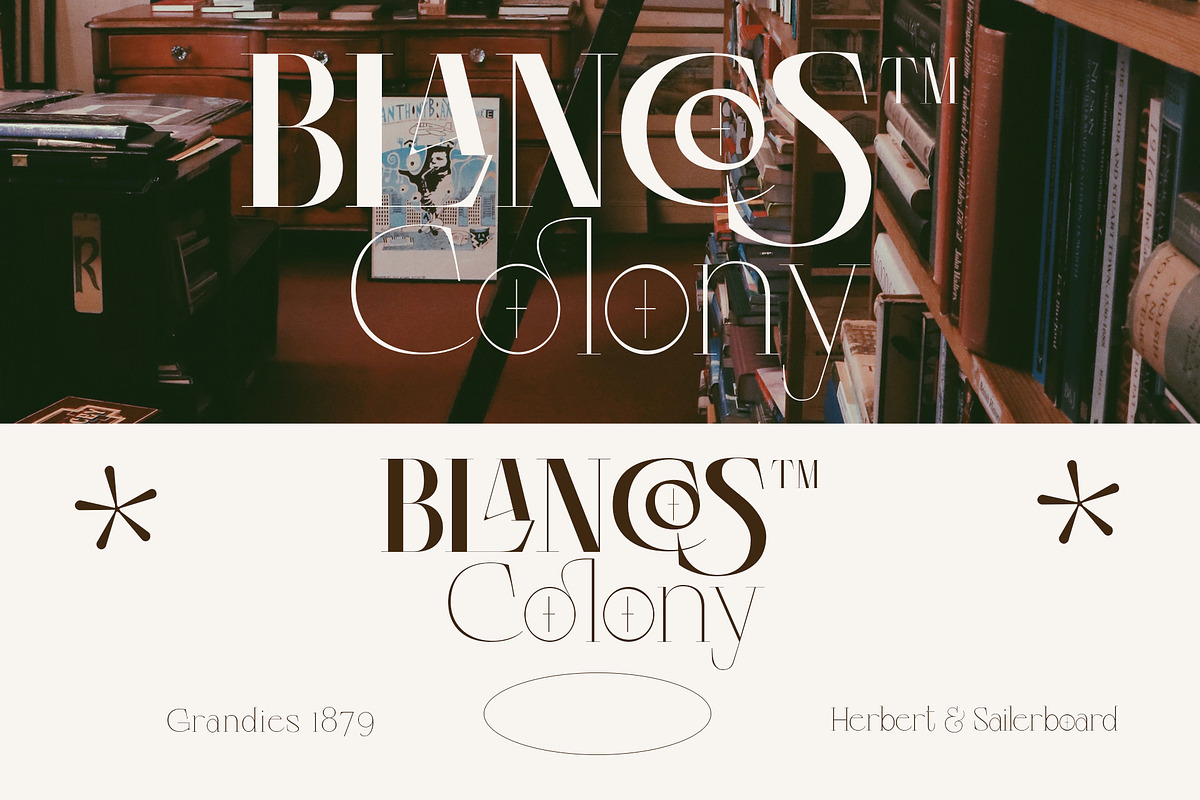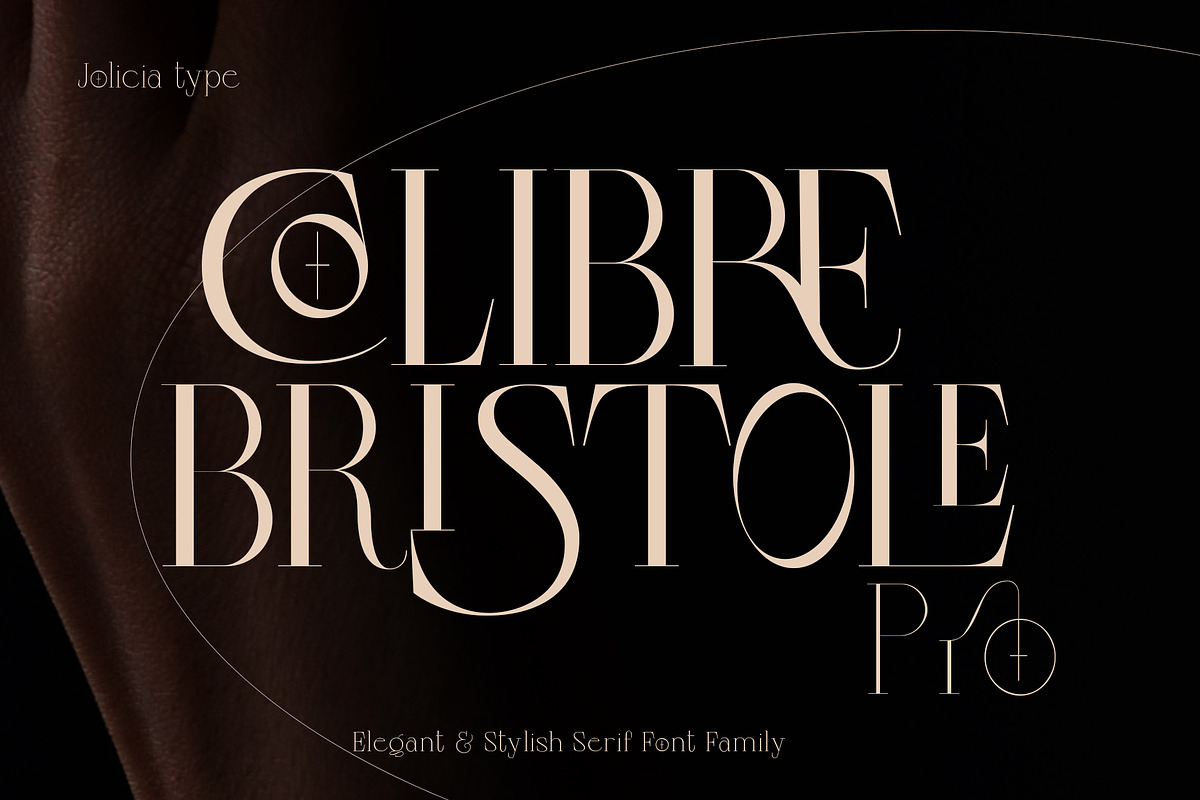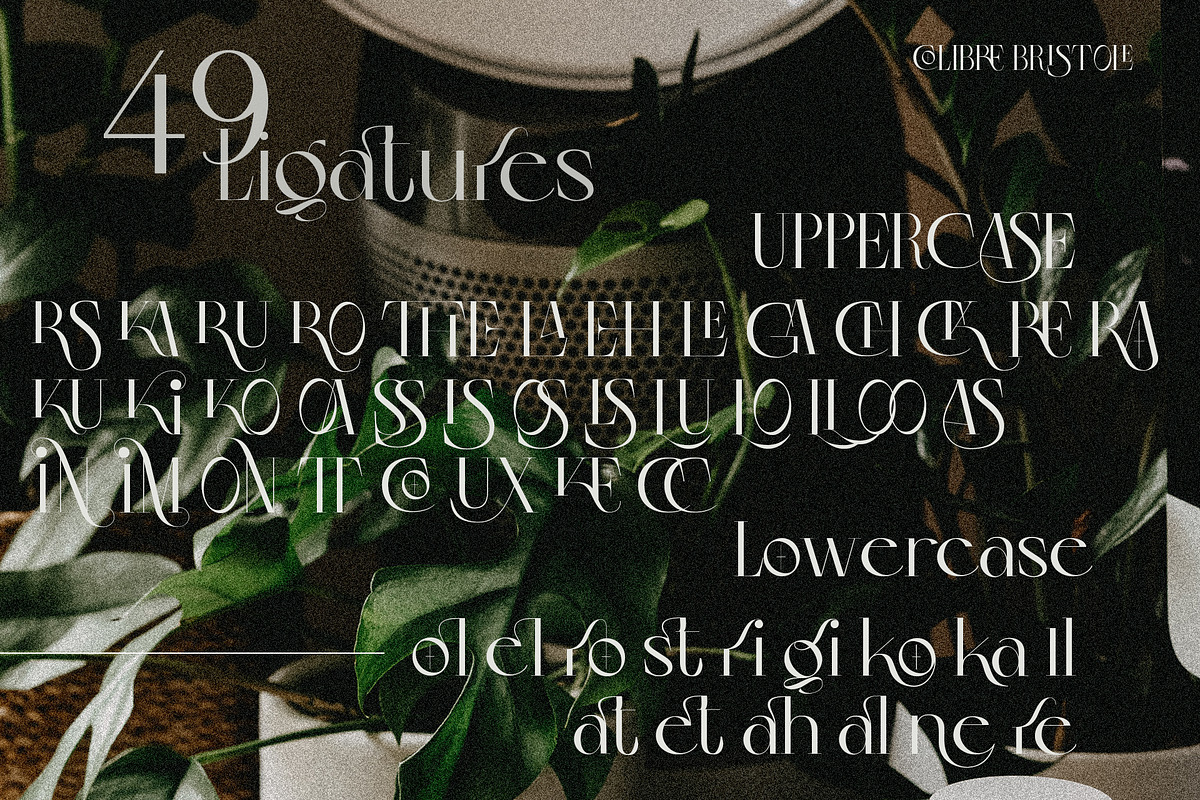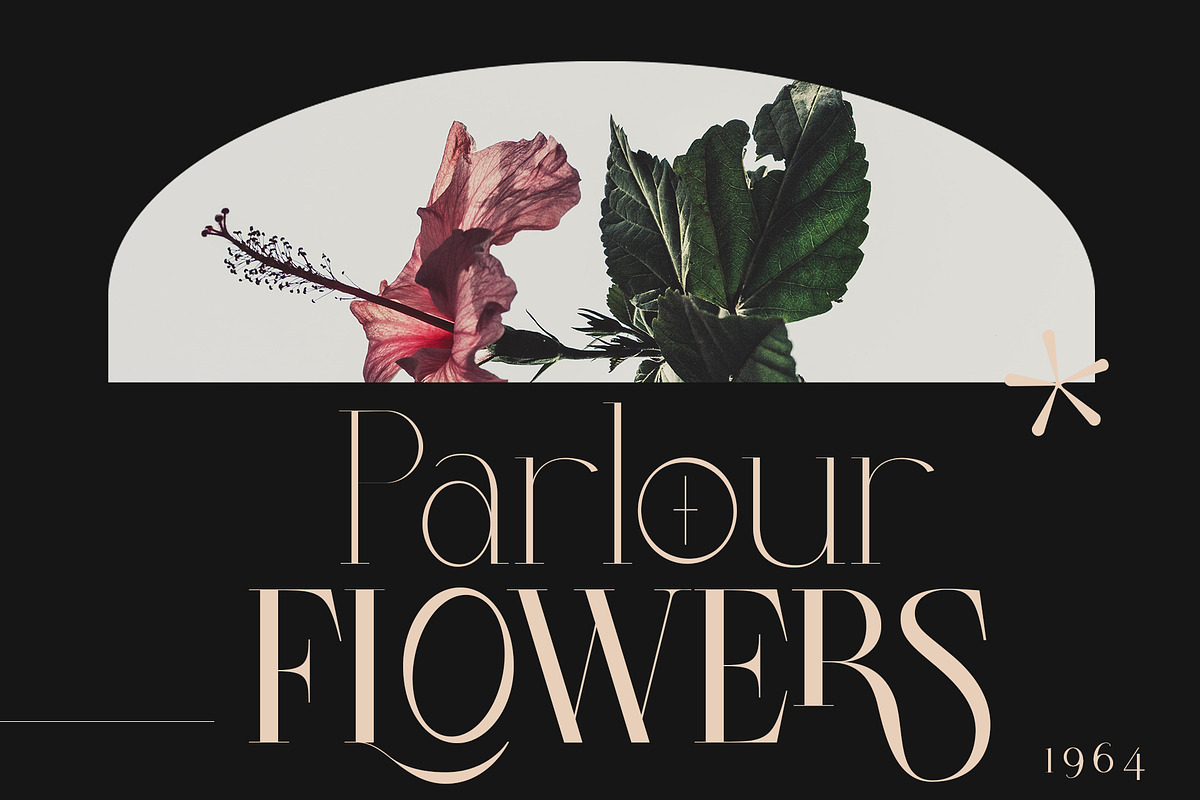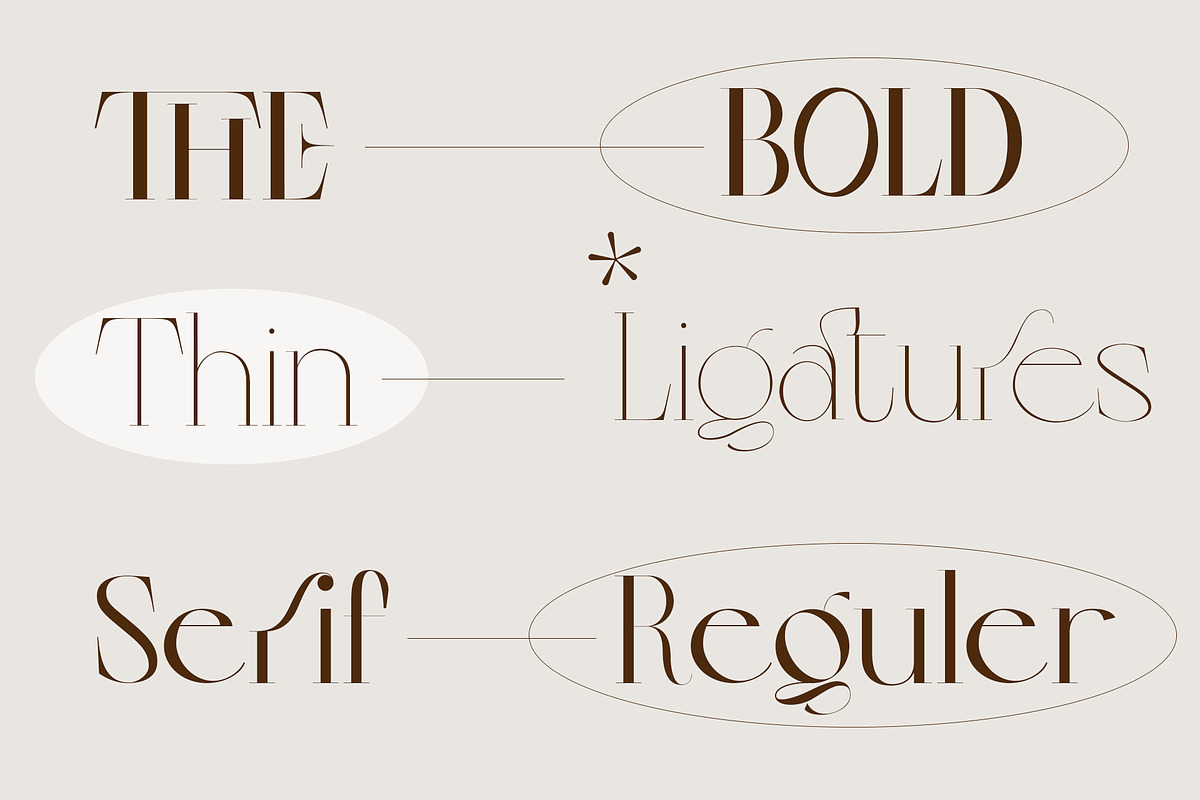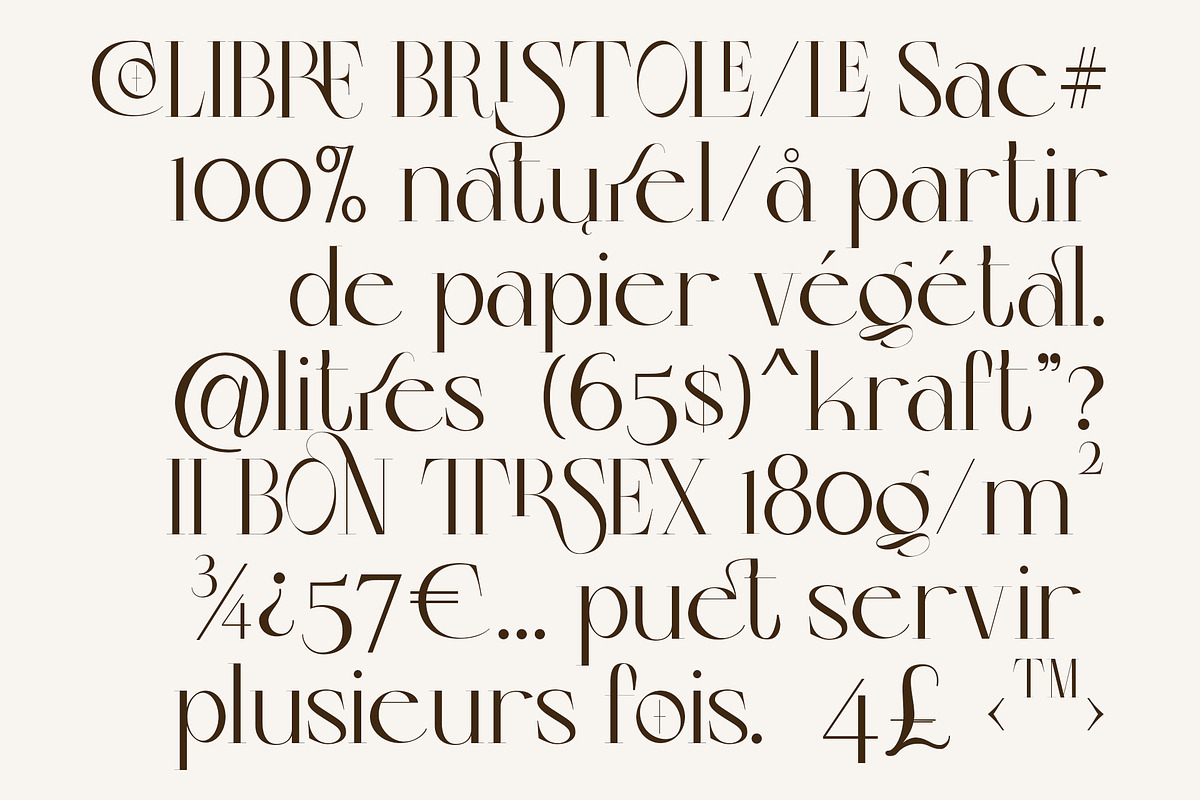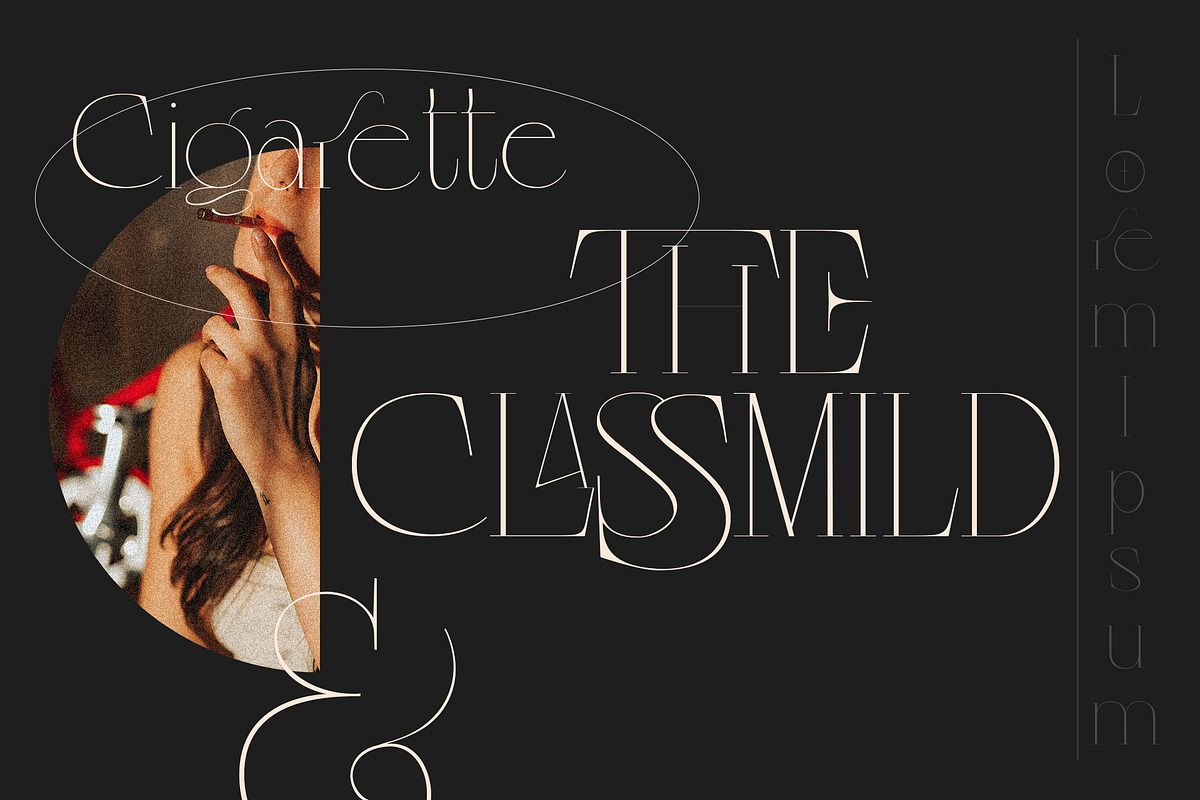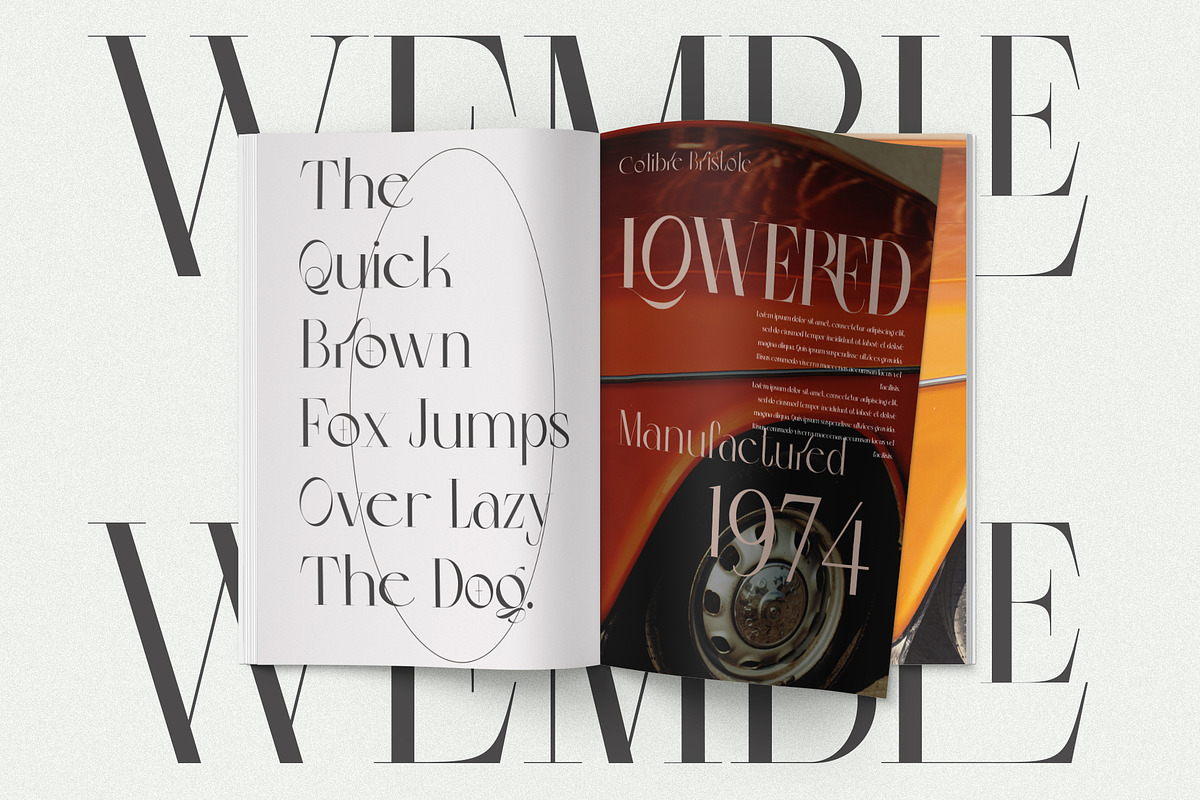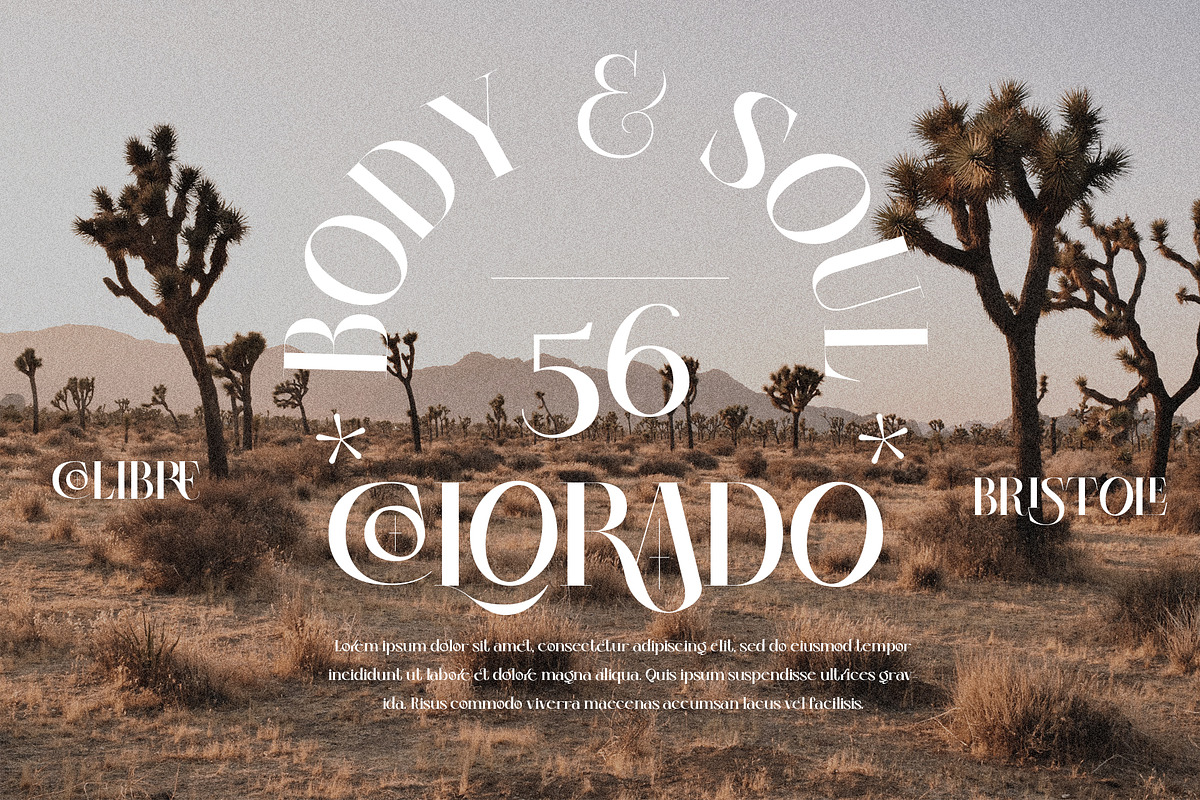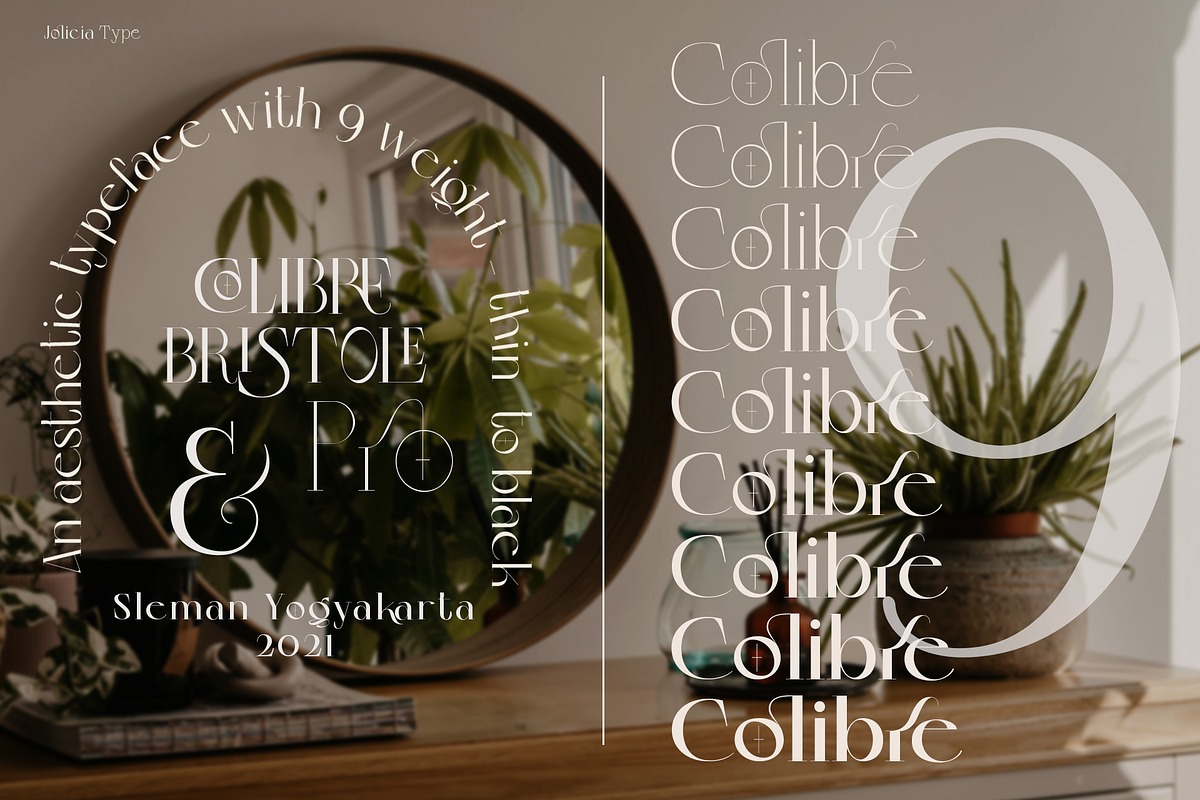
Colibre Bristole Pro
Colibre Bristole Pro is a serif font family that crafted with precision, Colibre Bristole consist of 9 styles from thin to black. has 49 ligatures to make writing more interactive